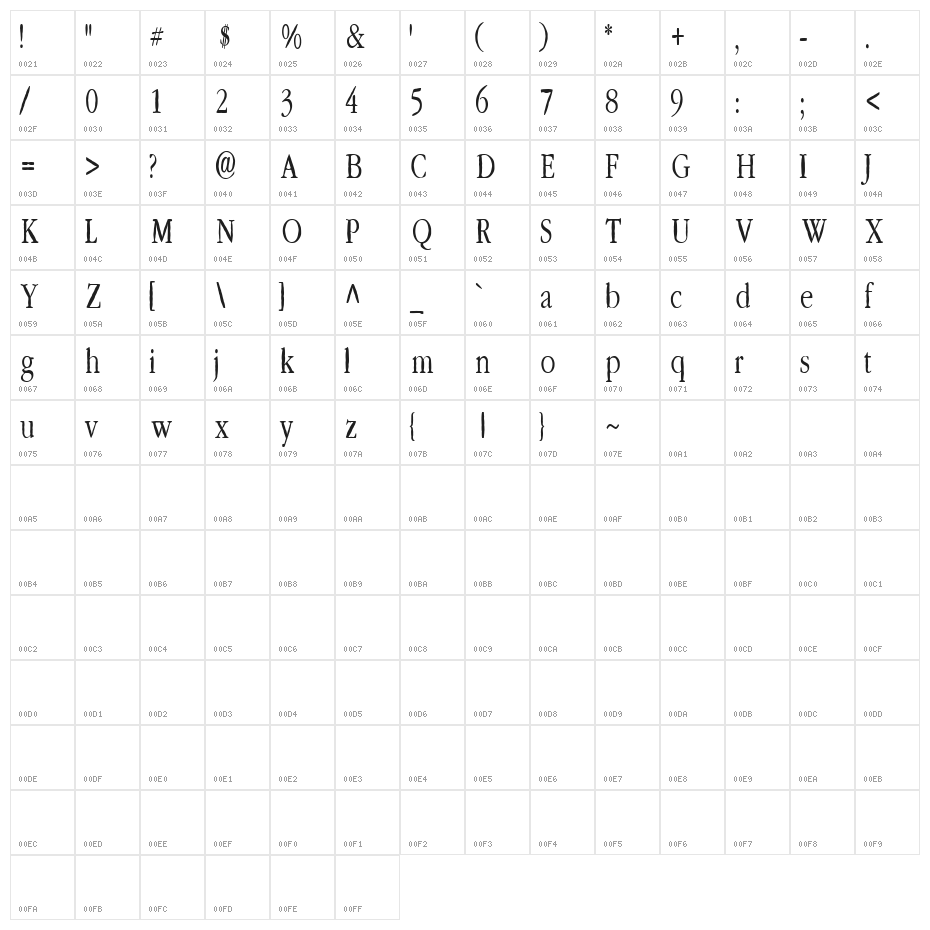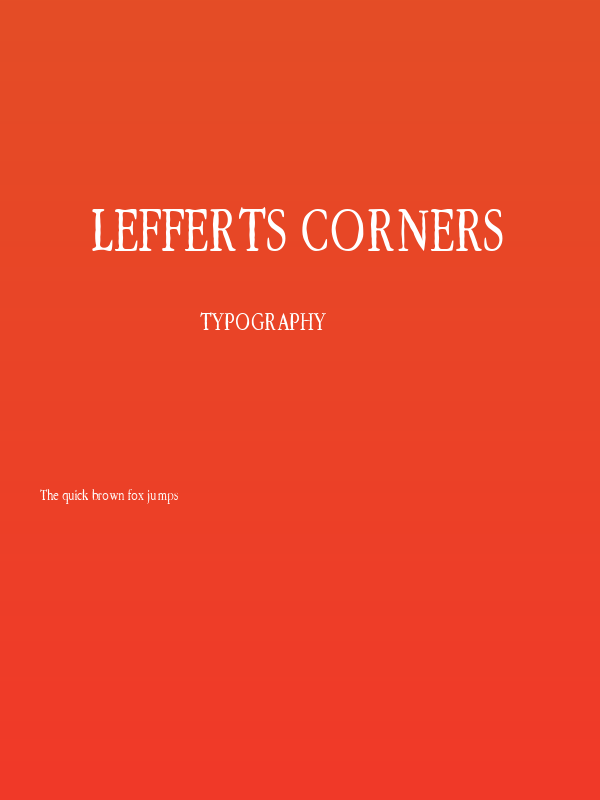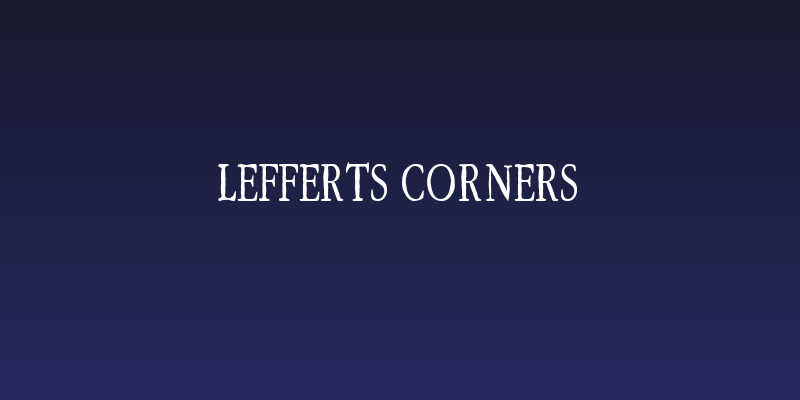
Lefferts Corners Font
Lefferts Corners Description
This font features a distinctive and artistic style with a hand-drawn appearance. The characters exhibit a slightly irregular and organic form, giving them a unique and expressive quality. The uppercase letters are bold and prominent, while the lowercase letters maintain a consistent style with a touch of whimsy. The numerals are clear and legible, with a playful twist that matches the overall aesthetic. Special characters are creatively designed, adding to the font's charm. The strokes vary in thickness, providing a dynamic contrast that enhances readability and visual interest.
| Use Case | Logos, Posters, Invitations |
| Proposed Projects | Ideal for creative projects such as posters, invitations, and branding materials that seek a unique and artistic touch. |